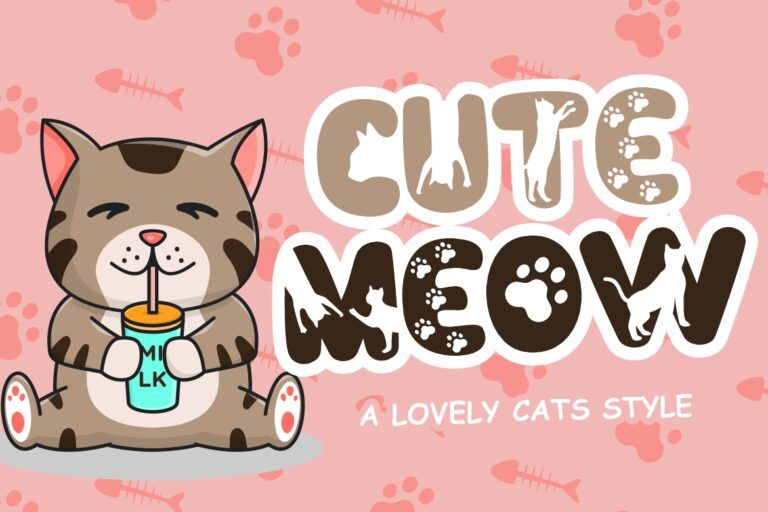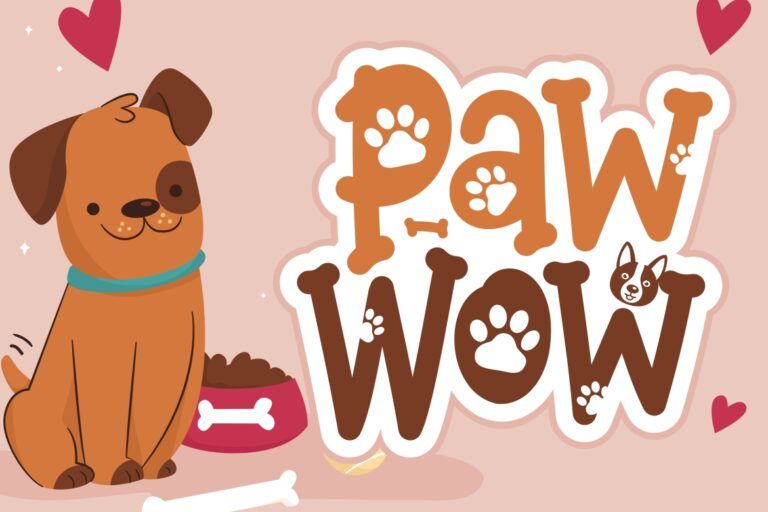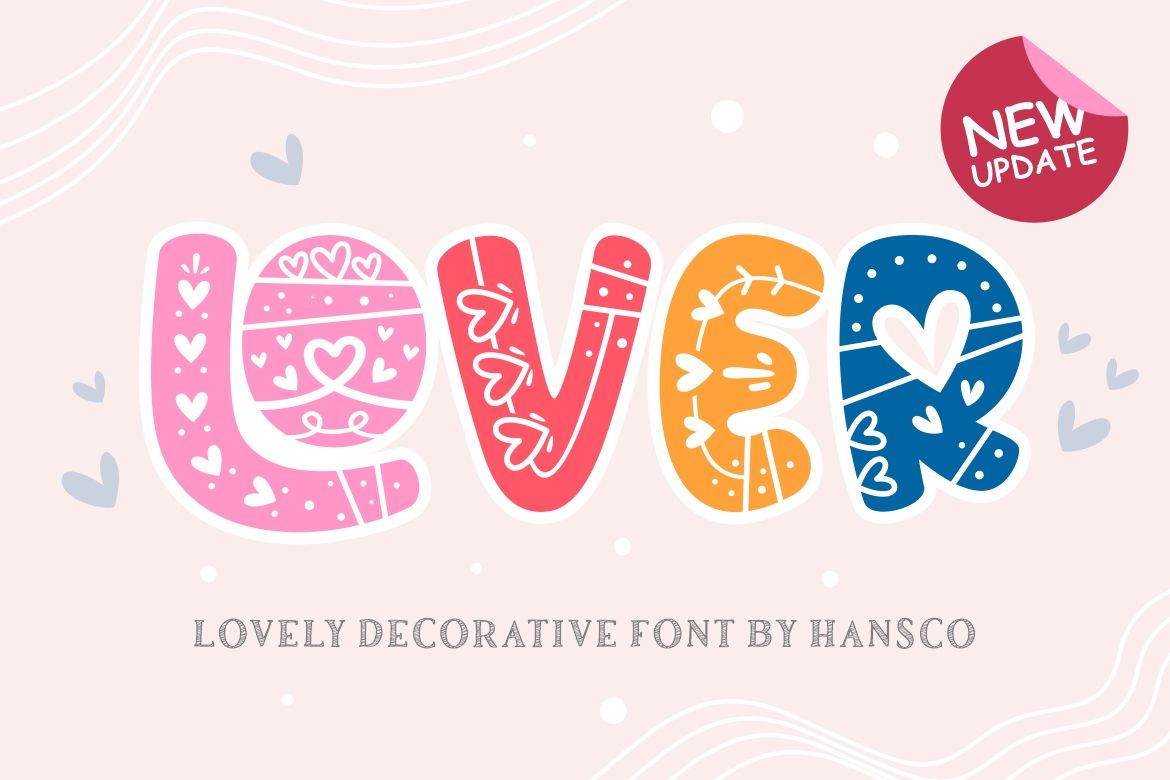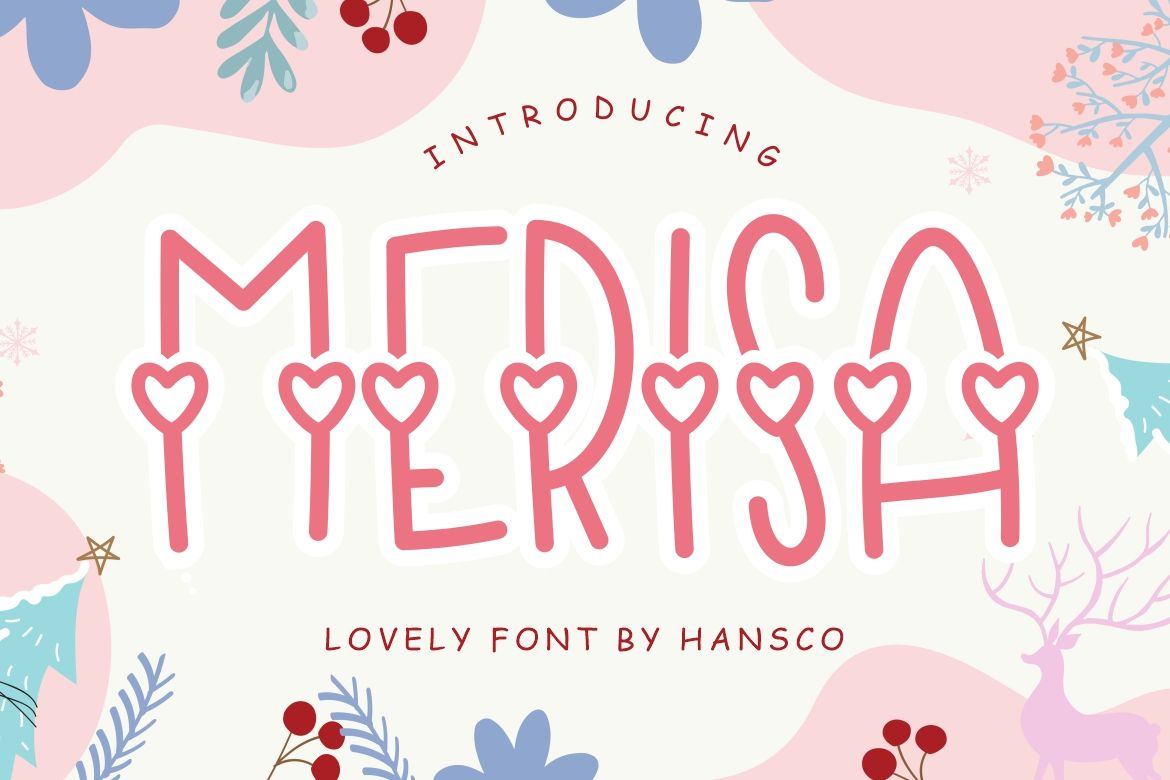
Kawaii Font: Where Typography Speaks Beyond Words
For those of you who are enthusiastic about Japanese culture and media, you might be familiar with the word kawaii.
According to Merriam Webster dictionary, kawaii refers to a cultural style that is associated with bright, pastel colors and childlike imagery. In Japanese, the word kawaii suggests a meaning of someone or something being “cute,” “tiny,” or “lovable.” It carries a cute aesthetic, with its distinctive bold, nearly cartoon-like lines and rounded character.
The word kawaii shaped Japanese popular culture. It reflects the cultural shifts in Japanese history. Besides the interesting past story, this article will explore the features and samples of this cute typography.
Kawaii Font: Typography and Cultural Reflection
Cute products spread across cultures throughout history. But, in Japan, the 1970s marked the milestone for the significant rise of the kawaii as a commercial culture.
The trend of cute products began to emerge around stationery goods and handwritings. They quickly became popular among Japanese youth. Especially among girls in school.
The famous round calligraphic style was well-known as maru moji. This style is especially associated with the use of certain merchandise in stationery, especially mechanical pencils and character-printed stationery.
Over time, the enthusiasm for cute products and handwriting eventually spiraled into the personalization of handwriting style, which was closely linked to the culture of letter and diary writing among girls.
The fever over cute products spread around the world in the nineties amidst the struggling economy and aging population in Japan.
Nowadays, kawaii has evolved into a mainstream phenomenon among youth around the world, influencing handwriting, branding, even fashion and digital design. You might often find youth cosplaying as cute characters. That is the spread of culture.
Beyond typography, handwriting style apparently also reflects important breakthroughs in the culture of Japan.
What Makes a Font Kawaii
Derived from the word “cute”, there are distinct visual characteristics that would make certain handwriting styles have such a uniquely playful and charming aesthetic, as follow:
⦁ Horizontally Written
As opposed to traditional Japanese vertical handwriting, the kawaii handwriting style is written horizontally, influenced by the Latin writing system commonly used in the West.
⦁ “Cute” Style
The popular cute characters in Japan are commonly designed as having large heads, small and compact bodies, wide eyes, tiny noses, and minimum or no facial expression.
Kawaii fonts embody the same Japanese concept of “cute”as those characters. These fonts are known for having big rounded letterforms with playful and heavily stylised details, such as; emoticons, stars, and hearts.
⦁ Color Pallete
Other details featured in the Japanese-born fonts are thick and black outlines to emphasize the cuteness. These fonts are typically colored in pastel shades.
Kawaii Fonts Samples
Cute typefaces can visually communicate the vibe of joy, charm, cuteness, and softness in your Japanese culture–inspired design. They appeal to audiences of all ages. These fonts are ideal if you are designing for kids’ stuff brands, or products for pets.
Kawaii fonts emit a sense of personalized and customized things, just for you. They contribute to the feel of your products being lovable and approachable.
Let’s look at the ones Hanscos Studio provided for you
⦁ Smothy
Smothy font pops out right from your heart. Its thick, rounded, and soft curved letters brought you to the memory of blowing bubbles on a bright sunny day.
This font is a perfect match for children’s books, posters of events for children, and cute products packaging.
⦁ Merisa
Merisa feels like a teen romantic-comedy drama or movie you watch while relaxing in your room, with sweet caramel popcorn or heart-shaped lollipop in your hand. The actor and actress are wearing stylish cute wardrobe and being sweet with each other.
⦁ Lover
If you see them write each other love letters, this font would be perfect to be in the cover of the card. But if you want to use Lover font for baby–related events’ invitations, or any projects that need gentle and affectionate touch, that would be very perfect.
⦁ Baking Pastry
The sweetness of pastries that melts in your mouth, drawn straight from a recipe book. This monoline font would give you a guide when you Baking Pastry on a fun and relaxing weekend.
This pretty font would give your bakery branding, DIY projects, food blogs logos spotlight of warmth.
⦁ Paw Wow
Paw Wow feels like you get a letter from your cute, lovely, furry friends. They sent you cute, adorable words with little paw prints in it. Isn’t it lovely?